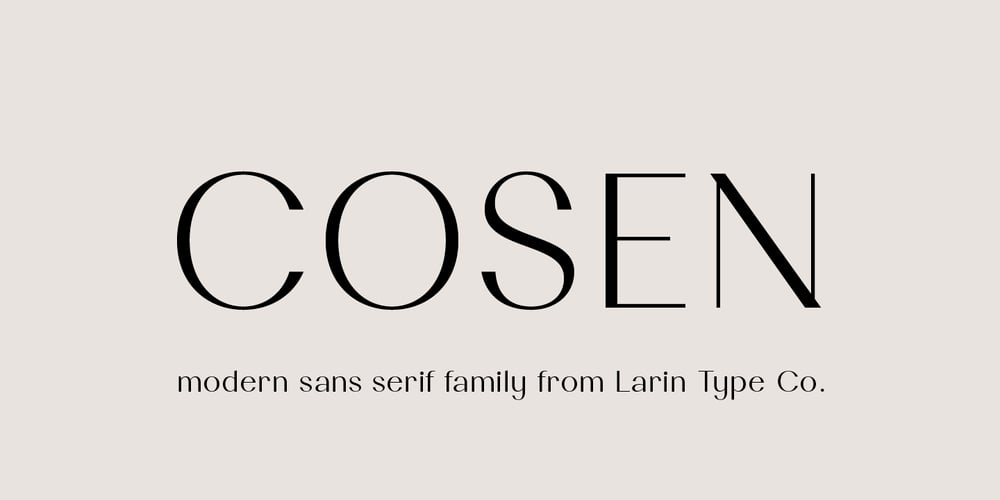
Cosen Font Family was designed by Pavel Larin and published by Larin Type Co. Cosen contains 8 styles and family package options. Cosen is an elegant, modern and contrast sans-serif font family, and a great fashionable solution for your project. It includes upright and Italic style, each of them has four weights from thin to bold. This is a multi-purpose font that is perfect for fashion project, it is contrasted, modern and easy to read. With it, you can create logos, banners, use in advertising, packaging, book covers and magazines, headings, descriptions and much more.